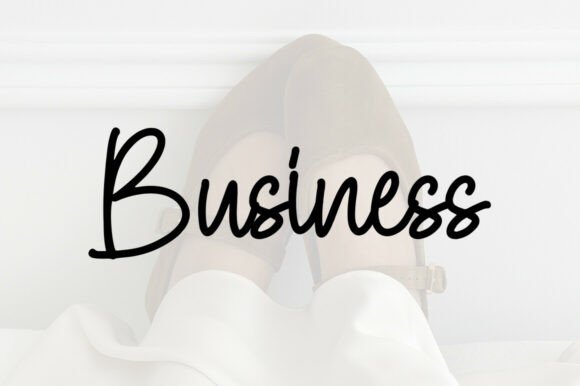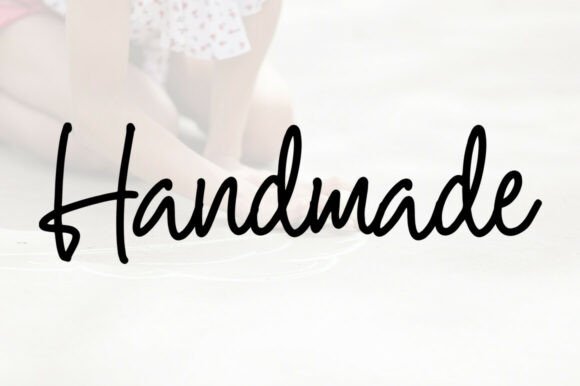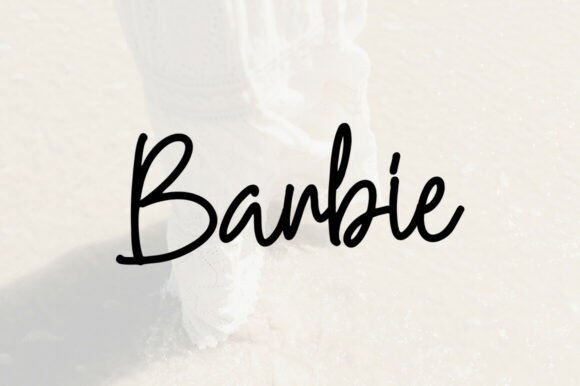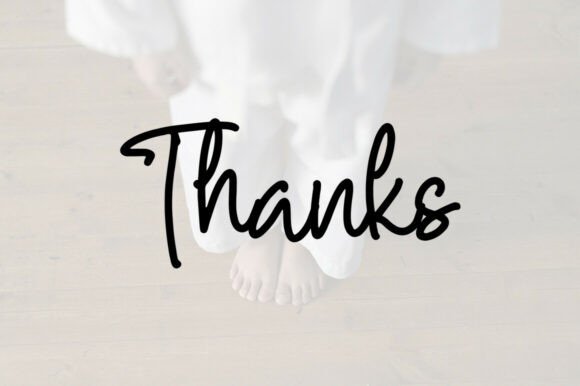
When Words Flow Like Water
Have you ever been in the midst of a creative project, pouring your heart and soul into every detail, only to feel like something’s missing? Maybe it’s the perfect font that sets the tone for your design. For many designers, finding that elusive font can be a challenge. But what if I told you that the solution lies in a delicate, elegant, and flowing handwritten font that’s been making waves in the design world?
Against Font is a beautifully crafted typeface that’s designed to add a touch of sophistication to any project. With its well-balanced characters and flowing lines, it’s the perfect choice for designers who want to create a sense of harmony and balance in their designs. Whether you’re working on a branding project, a website, or a print campaign, Against Font is a valuable addition to your toolkit.
Key Features of “Against Font”
- Unique Character Set: Against Font features a unique character set that includes a wide range of symbols, icons, and glyphs, making it an ideal choice for designers who need to add a touch of personality to their work.
- Font Weight and Style: Against Font comes in a range of weights and styles, including light, regular, bold, and italic, allowing designers to add depth and nuance to their designs.
- OpenType Features: The font includes advanced OpenType features such as ligatures, swashes, and contextual alternates, making it a powerful tool for designers who want to add a level of sophistication to their work.
Against Font Review
Overall, I think Against Font is a great addition to any designer’s toolkit, but like any tool, it has its strengths and weaknesses. Here’s my honest review:
- Unique and bold aesthetic: Against Font has a distinct, hand-drawn look that can add a lot of character to a design.
- Highly customizable: This font offers a wide range of options for adjusting its appearance, making it a great choice for designers who like to experiment.
- Perfect for modern designs: Against Font’s clean, minimalist lines make it a great fit for contemporary designs.
- Limited legibility at small sizes: While Against Font looks great at larger sizes, it can be difficult to read at smaller sizes.
- Not suitable for traditional designs: The font’s bold, modern aesthetic may not be the best fit for more traditional or conservative designs.
I would definitely recommend Against Font to designers who are looking for a bold, modern font that can add some personality to their designs. While it may have some limitations, I think its unique aesthetic and high level of customization make it a great choice for the right projects.
Against Font Practical Application Guide
Tips for Getting the Most Out of Against Font
Against Font is a bold, sans-serif font that works well for headlines and titles. To get the most out of it, use it sparingly and in combination with other fonts to create visual interest.
Experiment with different font sizes and styles to create a unique look.
Against Font is commonly used for:
- Business cards and resumes
- Marketing materials and advertisements
Alternatives to “Against Font” for Designers
Helvetica
Helvetica is a classic sans-serif font that is highly legible and versatile. It is often used in corporate and editorial design. When to use: For clean, modern, and professional designs. Compared to Against Font: Helvetica is more neutral and doesn’t have the same level of contrast, making it a better choice for designs where the text is the main focus.
Inter is a modern sans-serif font that is highly legible and adaptable. It is designed for digital use and is often used in web design. When to use: For modern and minimalist designs, especially for digital platforms. Compared to Against Font: Inter is more refined and has a more subtle aesthetic, making it a better choice for designs where a clean and simple look is desired.
Is Against Font available in multiple weights and styles?
Yes, Against Font is available in multiple weights and styles, including light, regular, medium, bold, and black. Each weight and style has its own unique characteristics and can be used to create visual hierarchy and emphasis in your design. You can use the font-weight property in CSS to select the desired weight and style of Against Font.